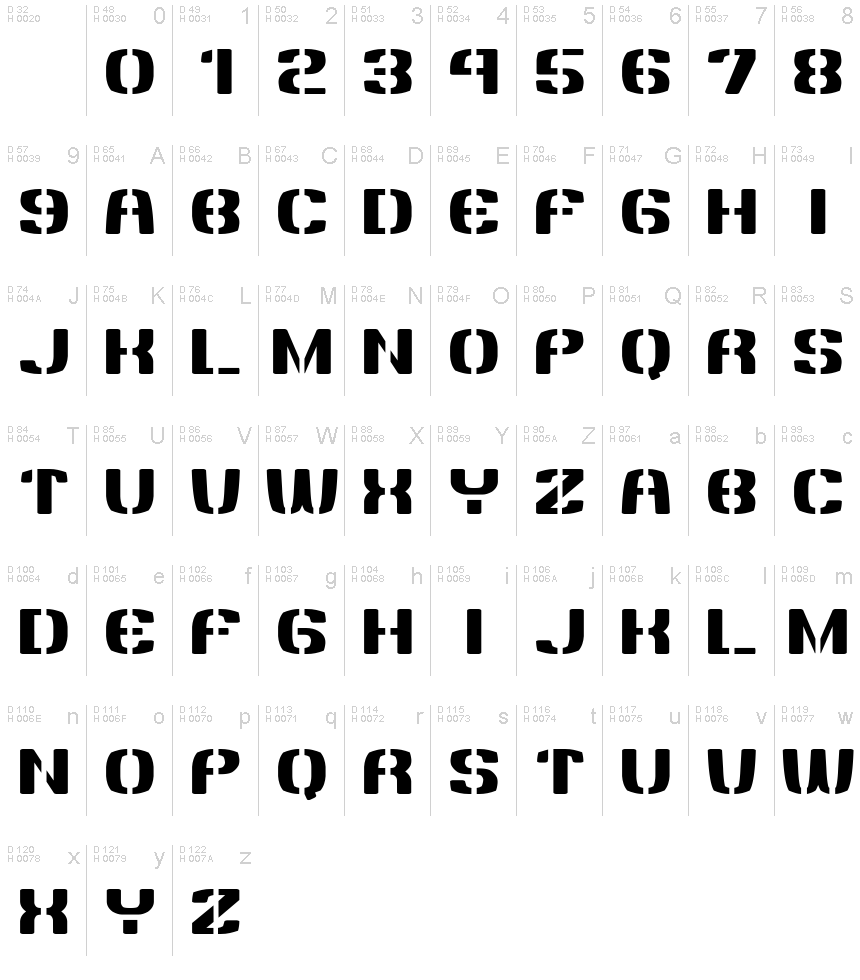
Goma Stencil
Goma Stencil font, crafted by Goma Shin, is an eye-catching display typeface known for its bold intensity and expanded width. This stencil-style font stands out with its robust and striking design, making it perfect for grabbing attention in headers, posters, and branding projects. The bold weight enhances legibility and impact, while the expanded style gives it a unique visual flair.
Ideal for creative projects that require a modern and industrial touch, Goma Stencil is versatile enough for both digital and print media. Designers can leverage this free font's distinctive characteristics to create memorable designs that resonate with audiences.